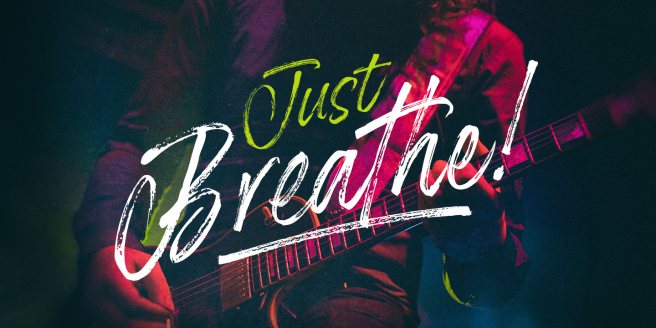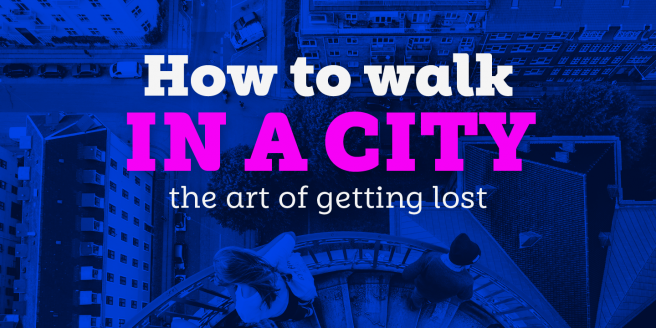
Harrison Serif Pro is a slab serif font focused around display use. The family covers a wide range of weights from sheer hairline to ultra black to unlock extensive options for headlines and other large scale use. It includes true italics and a wealth of other extras, making it the perfect companion to a modern sans. |
A new font from Nicky Laatz, Just Lovely is the font’s name and its best description. Another dry brush script that has a fun, modern vibe. Put it on everything from invitations to makeup, and enjoy the extras included. The extras include several pre-made phrases. They are a quick addition to any design or can be an inspiration to make your own. |
While the list might be a little bit late, what Typographica lacks in punctuality it makes up for in quality. Stephen Coles’ curated list of Favorite Typefaces of 2016 highlights the good from last year, not necessarily the hot. Fontspring has more than a handful of fonts on the list, but our favorites include ones we don’t carry: Neue Kabel, Lubaline, and everything from David Jonathan Ross.
Ulrik Hogrebe of Type Thursday interviewed one half of the creative duo behind the astoundingly successful reissue of the NYC Transit Authority and NASA design manuals. In this article Jesse Reed, founder of the imprint Standards Manual, shares from his experience in design and his experience running a Kickstarter.
In this interview from Khoi Vinh, Dan Rhatigan from Adobe Type shares the vision behind variable fonts and theorizes about their future use. We’ve shared a few articles on variable fonts already, but we appreciate Dan’s measured reaction to this new tech and his patience in seeing it roll out to software applications. We’re excited to see how variable fonts continue to carve out their niche.